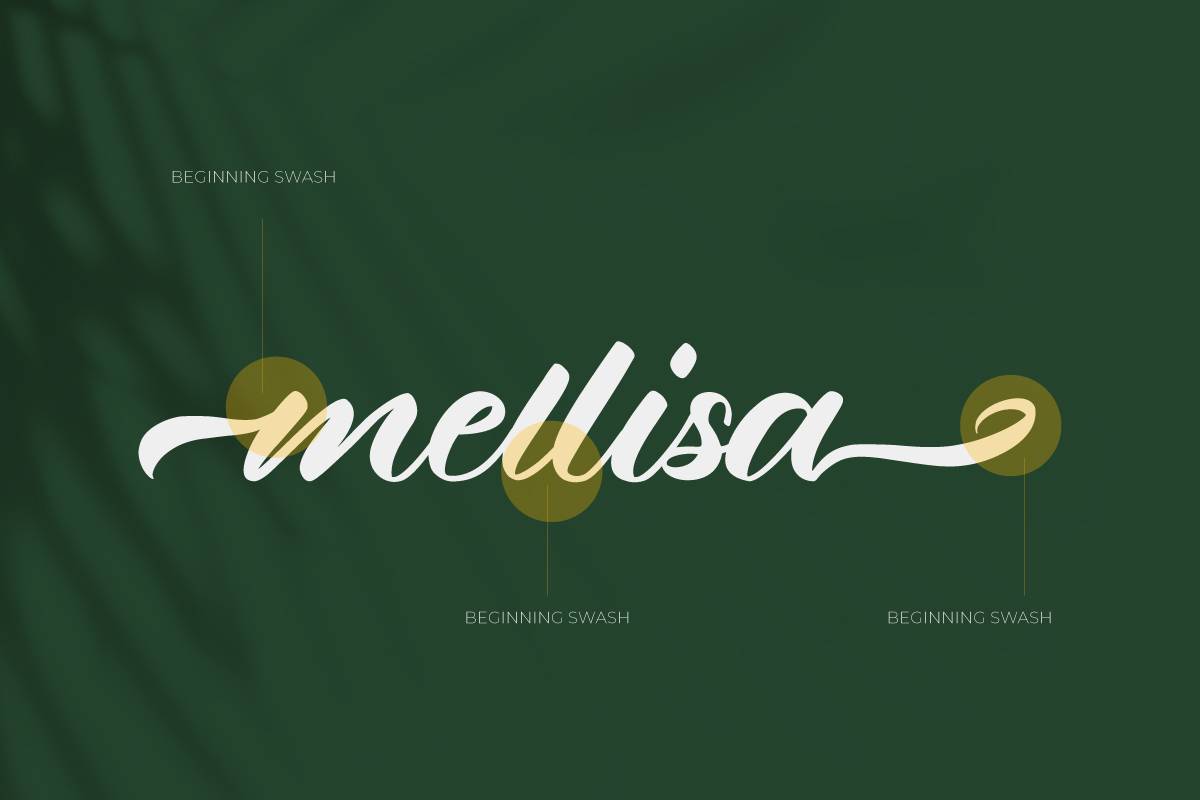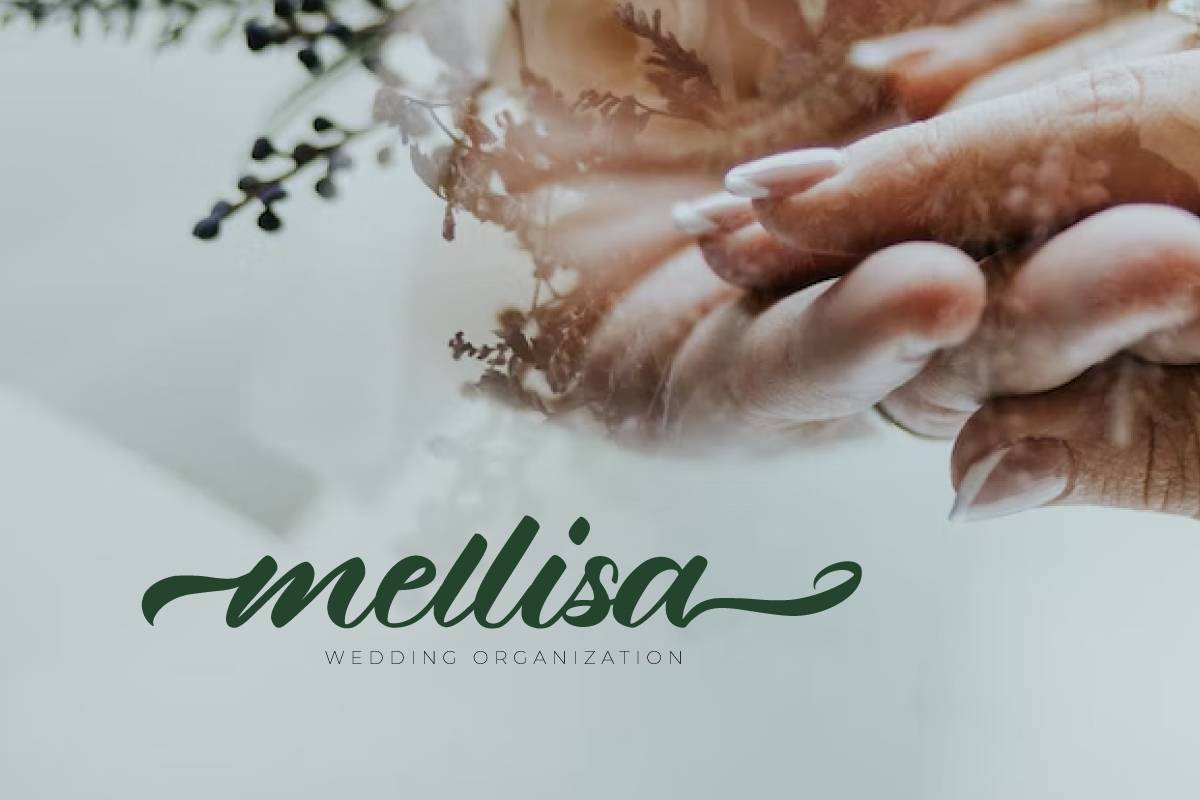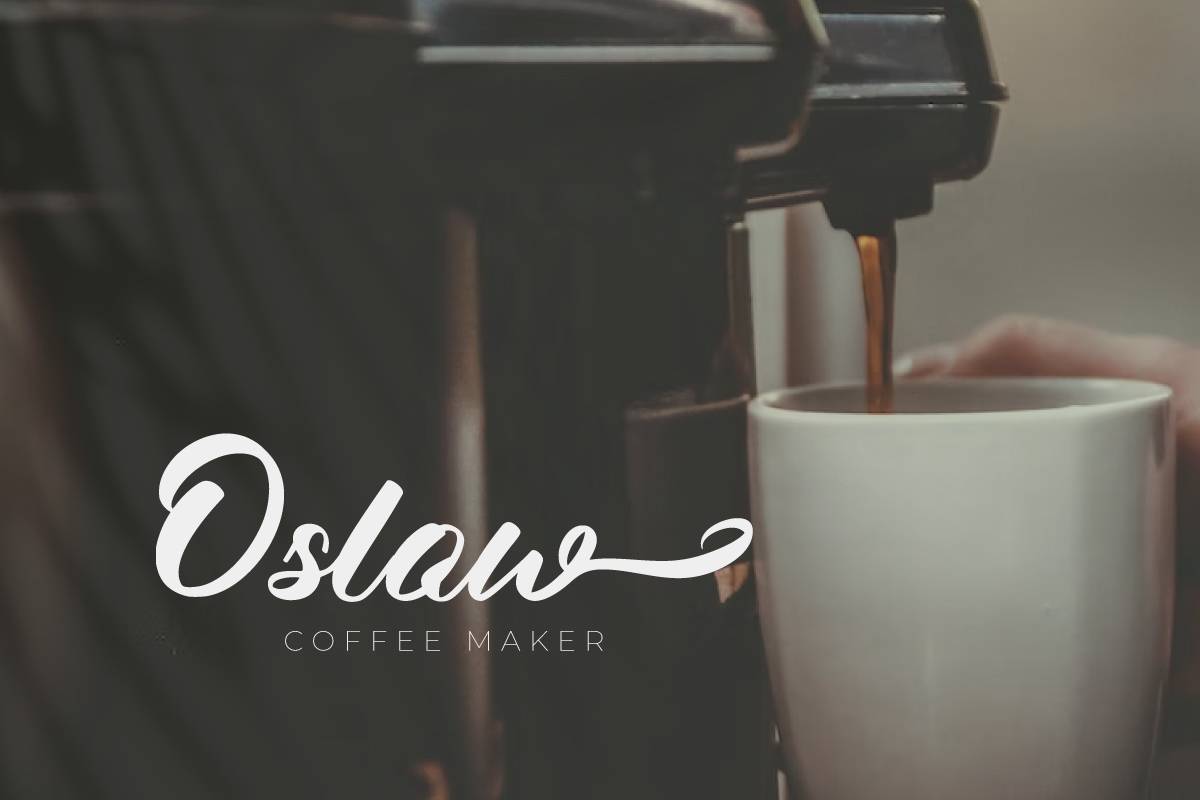
Minah is a stylish script font with a smooth, flowing design that exudes elegance and warmth. Its moderate weight and slightly condensed letterforms create a balanced look, while the gentle curves and connected strokes give it a handwritten, inviting feel. This font works beautifully for branding, invitations, and headlines where a touch of sophistication and personal charm is desired.
Minah Font
About Minah Font
| Font family | Minah Font |
| Designer | Afkari Studio |